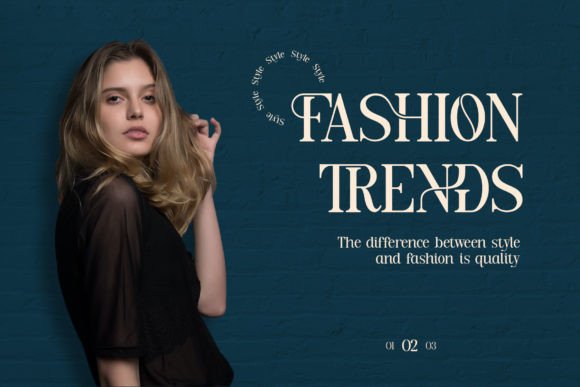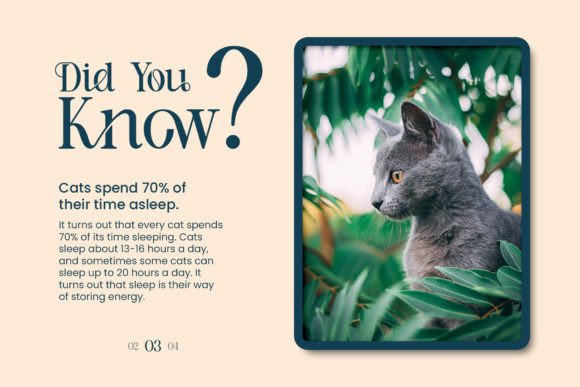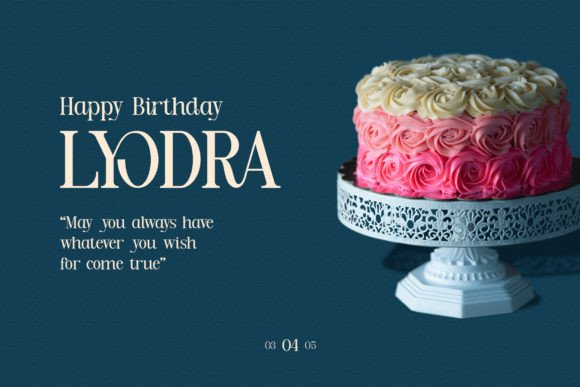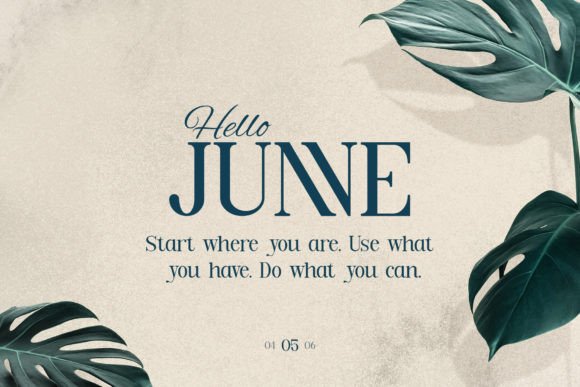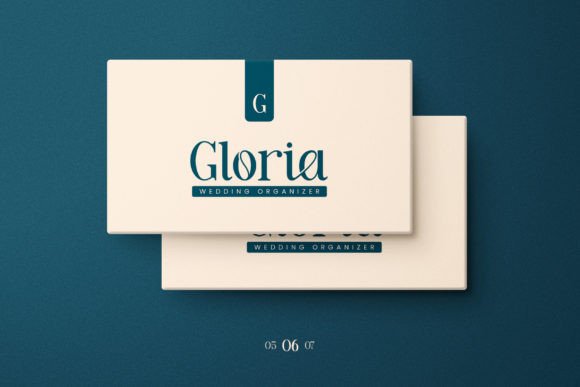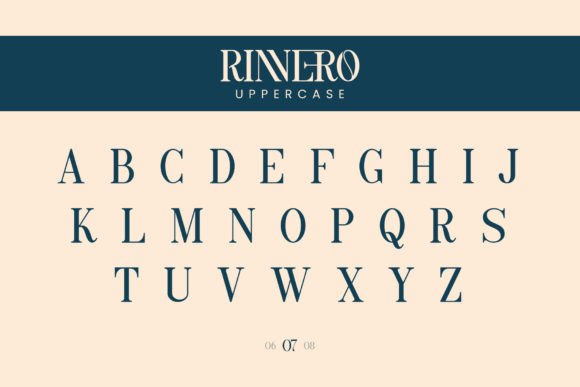
Introduction to Rinnero Font
Have you ever been stuck on a creative project, struggling to find the perfect font to bring your vision to life? You’ve spent hours browsing through design resources, searching for that one elusive font that will elevate your design to the next level. Well, your search is over. Meet Rinnero Font, a stunning serif font that’s about to become your new go-to design companion.
This beautiful font is a game-changer for designers, offering a unique blend of elegance and sophistication that’s perfect for a wide range of creative projects. Whether you’re designing an invitation card, creating a logo for a new business, or working on a book title, Rinnero Font is the perfect partner to help you achieve your design goals.
With its smooth, balanced, and stylish character, Rinnero Font is a high-quality design resource that’s sure to impress. Plus, with its PUA encoded feature, you can easily access all the amazing glyphs and ligatures to take your design to the next level. And the best part? You can download Rinnero Font for free, making it an invaluable resource for designers of all levels.
Key Features of Rinnero Font
- High-quality font design, ideal for creative projects that require a unique touch.
- Features a large character set, including a wide range of languages and characters, making it a versatile design solution.
- Designed with high resolution in mind, making it suitable for use in various design applications, from print to digital media.
- Perfect for designers and artists looking for a unique and creative font to elevate their design projects.
Honest Review: Rinnero Font
I recently had the chance to work with the Rinnero Font and I must say, it’s been a game-changer for my design projects. As a designer, I’m always on the lookout for high-quality design resources that can help elevate my creative projects.
- High-quality design: The Rinnero Font is incredibly detailed and visually appealing, making it perfect for a wide range of design projects.
- Transparent background: The font has a transparent background, which makes it easy to use on various design backgrounds.
While the Rinnero Font is an excellent addition to any design library, there are a few limitations to be aware of:
- Limited character set: The font only comes with a limited character set, which may not be suitable for projects that require a wide range of characters.
- Not suitable for large-scale use: The font may not be the best choice for large-scale projects, such as signage or billboards, due to its small file size.
Overall, I’m extremely impressed with the Rinnero Font and would highly recommend it to designers looking for a high-quality design resource. Its free download and transparent background make it a great choice for creative projects, and its high-quality design is sure to elevate any design piece.
To get the most out of Rinnero Font, use it in combination with other design elements, such as images and graphics. Experiment with different font sizes and styles to create visually appealing designs.
Common Use Cases for Rinnero Font
Rinnero Font is suitable for a variety of creative projects, including branding, marketing materials, and digital products. Its high-quality design makes it an excellent choice for businesses and individuals looking to create professional-looking designs.